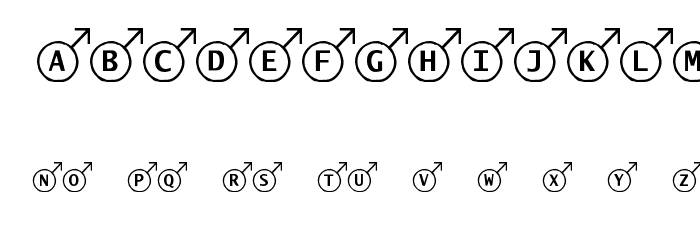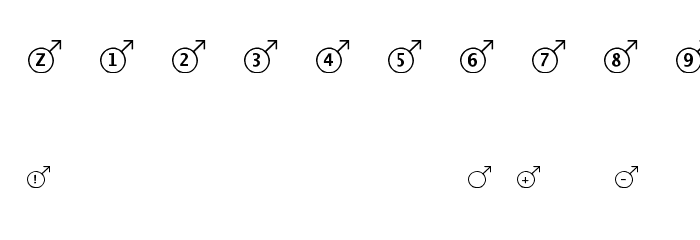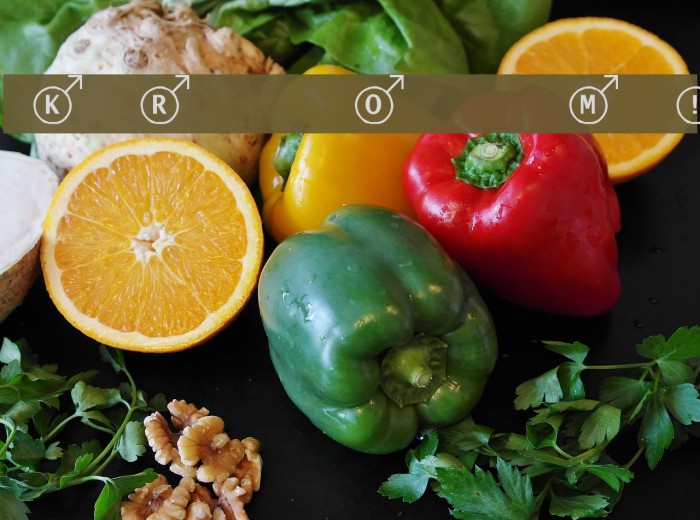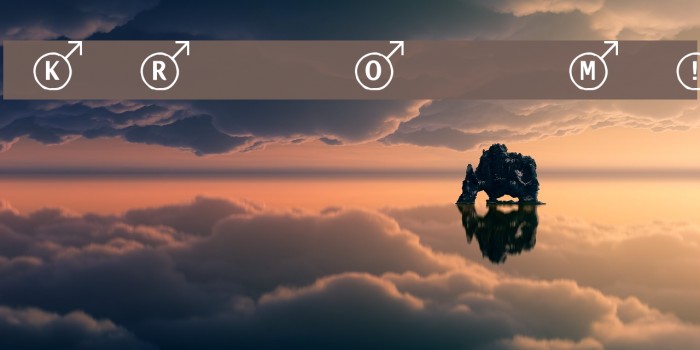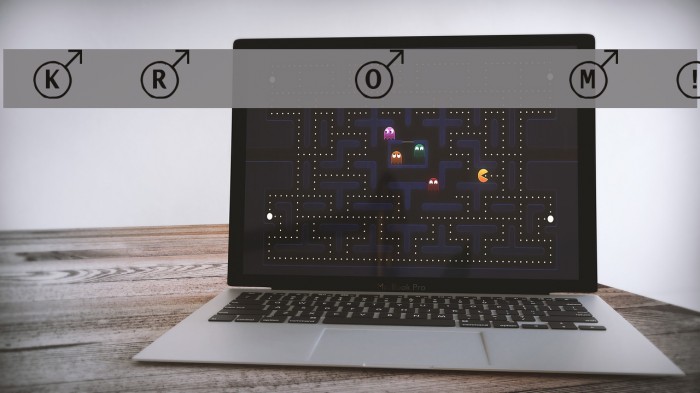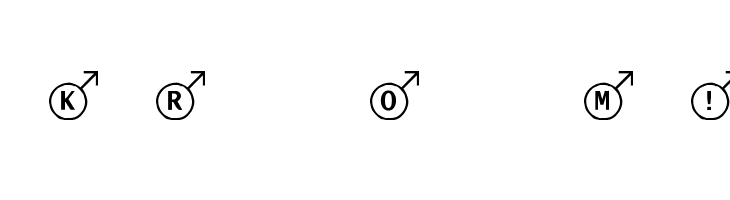
KR Oh Man! Font
This decorative font features bold, uppercase letters enclosed in circles, each adorned with an arrow pointing diagonally upwards to the right. The design is consistent across all characters, including numbers and special symbols, creating a cohesive and playful appearance. The font's unique style makes it suitable for creative and informal projects. The characters are evenly spaced within their circular enclosures, ensuring readability while maintaining a distinct visual appeal. The arrows add a dynamic element, suggesting movement or direction, which can be leveraged in thematic designs.
A decorative font with bold letters in circles, each with an upward arrow.
- Proposed Projects: Ideal for posters, event invitations, children's books, and playful branding.
- Use Case: Logos, Headlines